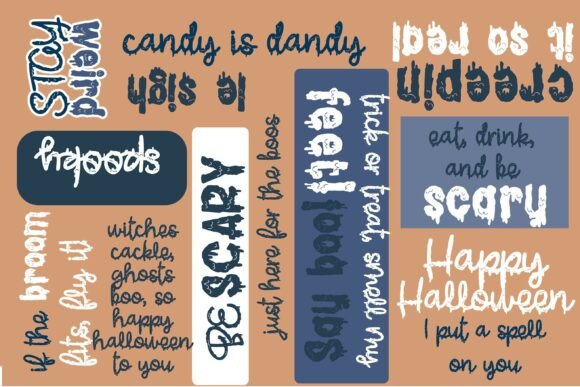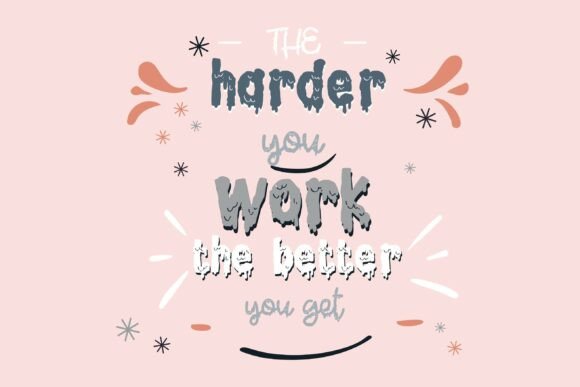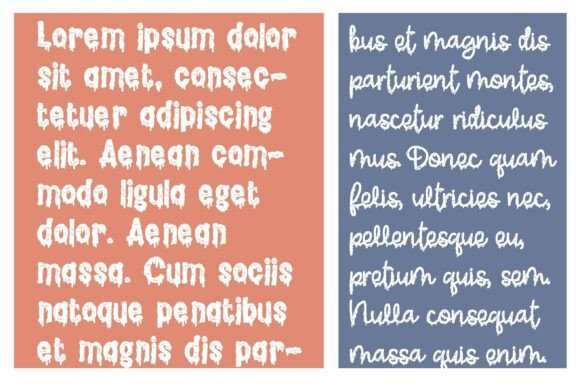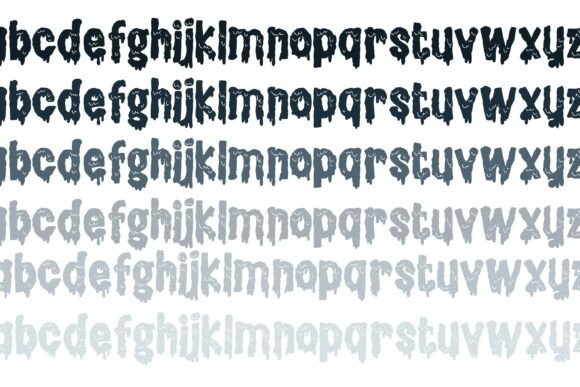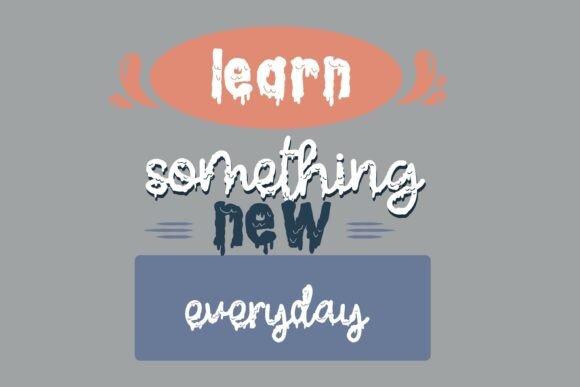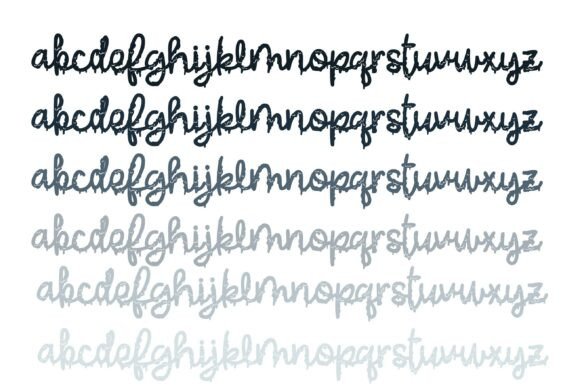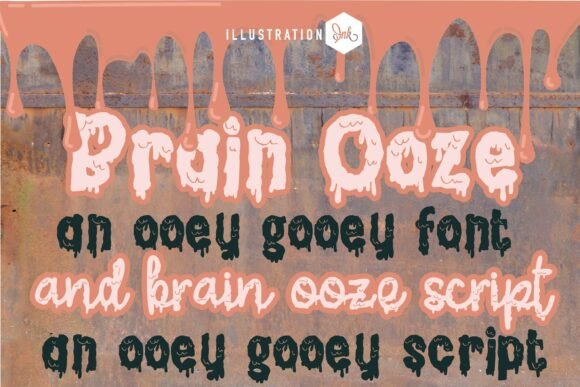
The Oozing Personality of Brain Ooze Duo Font
I’ll never forget the time I was working on a Halloween-themed project for a client, and I just couldn’t find the right font to capture that spooky, playful vibe. The client wanted something that would make their posters and invitations stand out, but not in a good way – they wanted to make people go “eww!” 🤢. That’s when I stumbled upon the Brain Ooze Duo Font, and let me tell you, it was love at first sight! 💕
• ✨ The Brain Ooze Duo Font comes with not one, but two amazing typefaces: Brain Ooze and Brain Ooze Script. The combo is perfect for adding some variety to your designs.
• ✅ The fonts are dripping, goopy, and downright disgusting – making them perfect for Halloween, zombie themes, or any design that needs a slimy, spooky twist.
• 🎉 The blocky and script styles offer a great balance of versatility and playfulness, making them suitable for a wide range of projects, from posters and horror invites to kids’ spooky crafts.
While I absolutely adore the Brain Ooze Duo Font, there are a few minor quirks to be aware of:
• ⚠️ The fonts might be a bit too playful for very formal or professional projects. Unless you’re going for a deliberately quirky vibe, it’s best to stick with more traditional fonts for those types of designs.
• 🤔 Some of the glyphs and special characters might require a bit of experimentation to get just right, especially if you’re new to using OpenType features or stylistic alternates.
The Backstory Behind Brain Ooze Duo Font
The Brain Ooze Duo Font was created by a talented designer who wanted to capture the playful, slimy essence of Halloween and zombie culture. The designer drew inspiration from classic horror movies, creepy crawlies, and the gooey, gross-out effects that make us all go “eww!” 🤢. The result is a font that’s equal parts spooky and fun, perfect for designers and crafters who want to add a little extra personality to their projects.
Font Name Brain Ooze Duo Font
Author Illustration Ink
Q: What type of projects is Brain Ooze Duo Font best suited for?
A: Brain Ooze Duo Font is perfect for Halloween, zombie themes, or any design that needs a slimy, spooky twist. It’s great for posters, horror invites, kids’ spooky crafts, or anything that screams “eww!”